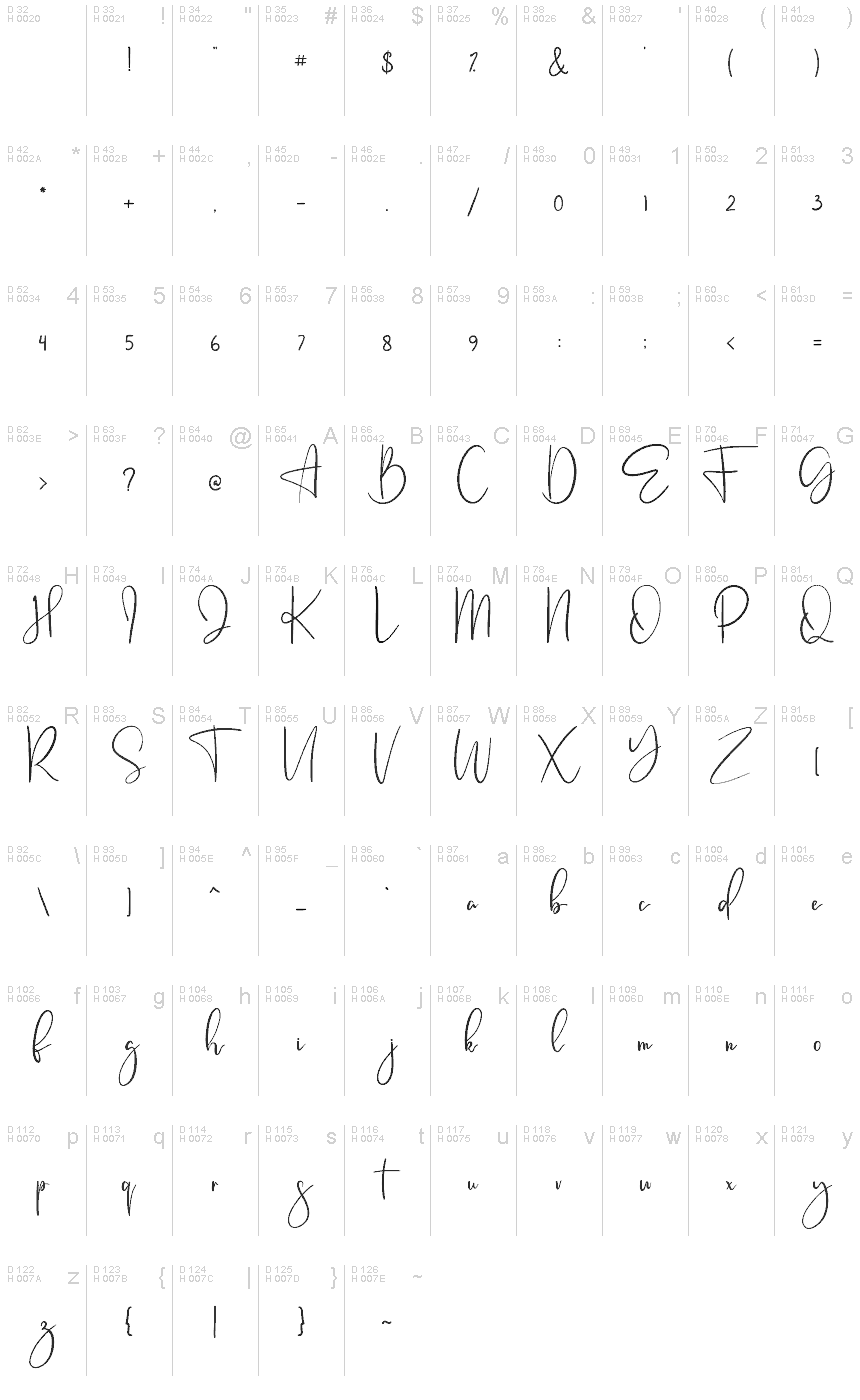
Zettama
This font has a style signature with natural curves and shapes that can be used for various uses, such as watermarks, branding, logos or logo names, and much more. Cattalonia comes with 109 beautiful ligature, so it will be beautiful to use.